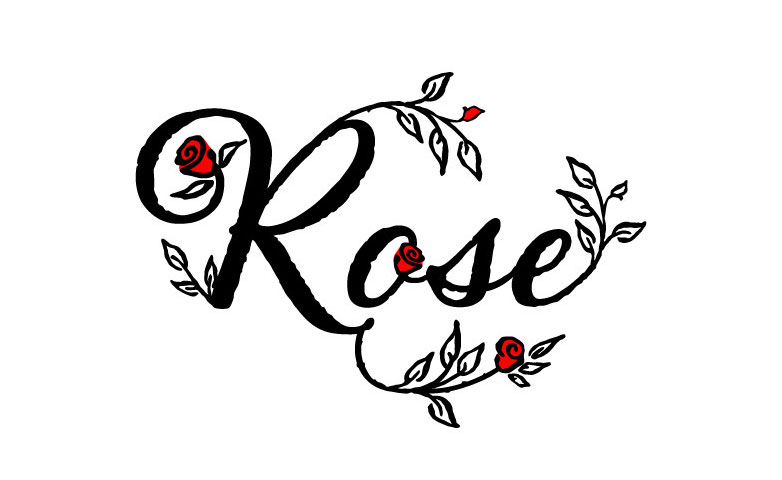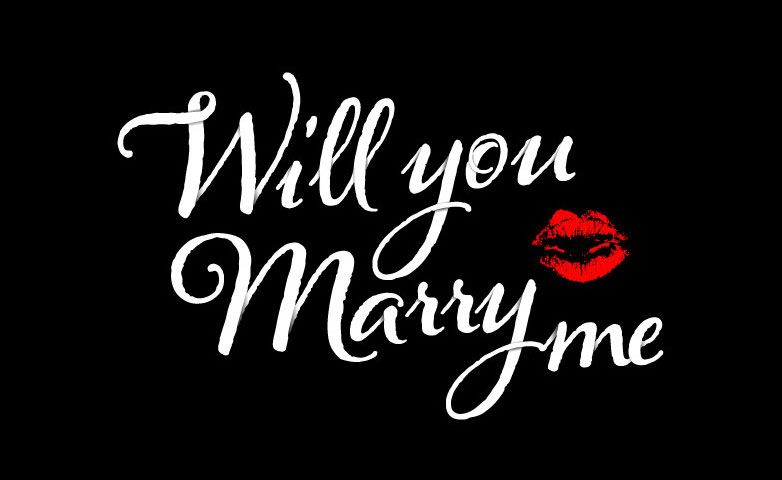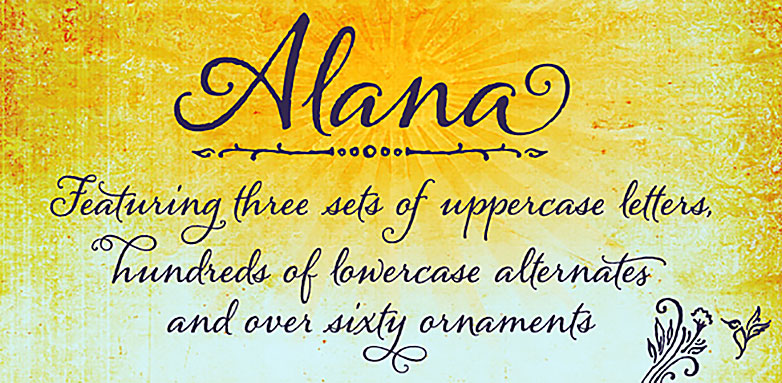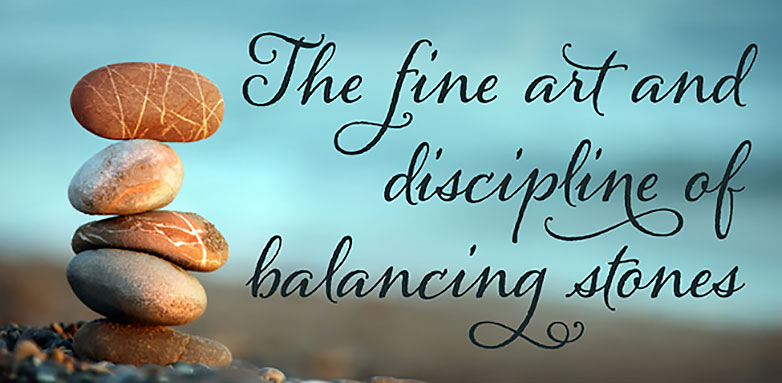
The constant geometric precision of screen-based design is enough to dehumanize any design project. The best way to counter that is with a typeface that screams “hand written!”
Alana Pro is an award winning typeface, having received the MyFonts Best Fonts of 2011, Ascender Fonts — Best Fonts of 2011, Typographica’s Best of 2011, and 2012 Communication Arts awards.
Named for Worthington’s little sister, the typeface oozes feminity and affection. It is inherently formal, but breaks out into spontaneous moments of playfulness, especially in some of the 341 alternates, that are so important to any handwriting font.
Alongside the standard characters, there are 62 ornaments providing some charming hand-drawn illustrations of leaves, flowers and birds.
Look closely and you’ll see that all of the glyphs — characters and ornaments — have been treated to a rough, uneven edge giving the design a wonderfully earthy and wholesome feel. If you’re working on a design for a healthfood shop, a yoga class, or even your local surf school, this is a great place to start your design.